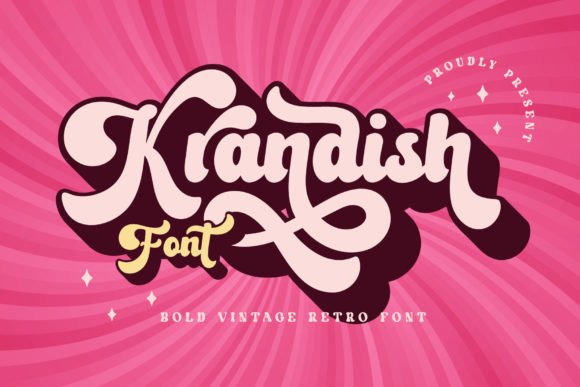
Introducing Krandish Font, the ultimate choice for designers seeking the perfect blend of retro and playful aesthetics. Crafted by airotype, this script font is guaranteed to elevate your design projects and leave a lasting impression on your audience.
With its vintage vibes, Krandish Font captures the essence of nostalgia and adds a touch of whimsy to any creative endeavor. Its cute and playful nature instantly draws attention and creates a sense of joy and excitement.
What sets Krandish apart is its extensive collection of extra glyphs, offering designers a plethora of options to truly customize their creations. Whether you're working on a logo, crafting project, wedding invitation, branding materials, stickers, sublimation designs, or quotes, this font has got you covered.
But that's not all – Krandish Font takes it a step further with its unique extruded style. This feature allows you to effortlessly add shadows or layers to the regular font, creating stunning visual effects that will make your designs pop. Stand out from the crowd and captivate your audience with this eye-catching font.
One of the standout features of Krandish Font is its PUA encoding. This means that accessing the extensive range of amazing glyphs and ligatures is a breeze. Unlock a world of design possibilities and effortlessly enhance your projects with intricate details and captivating flourishes.
Unleash your creativity with Krandish Font and watch as your designs come to life. The versatility of this font ensures that it can be seamlessly incorporated into a wide range of projects, allowing you to explore various design styles and themes.
Whether you're aiming for a retro-inspired logo that exudes charm or a whimsical wedding invitation that captures the essence of love, Krandish Font will exceed your expectations. Its timeless appeal and attention to detail make it a must-have for any designer looking to make a statement.